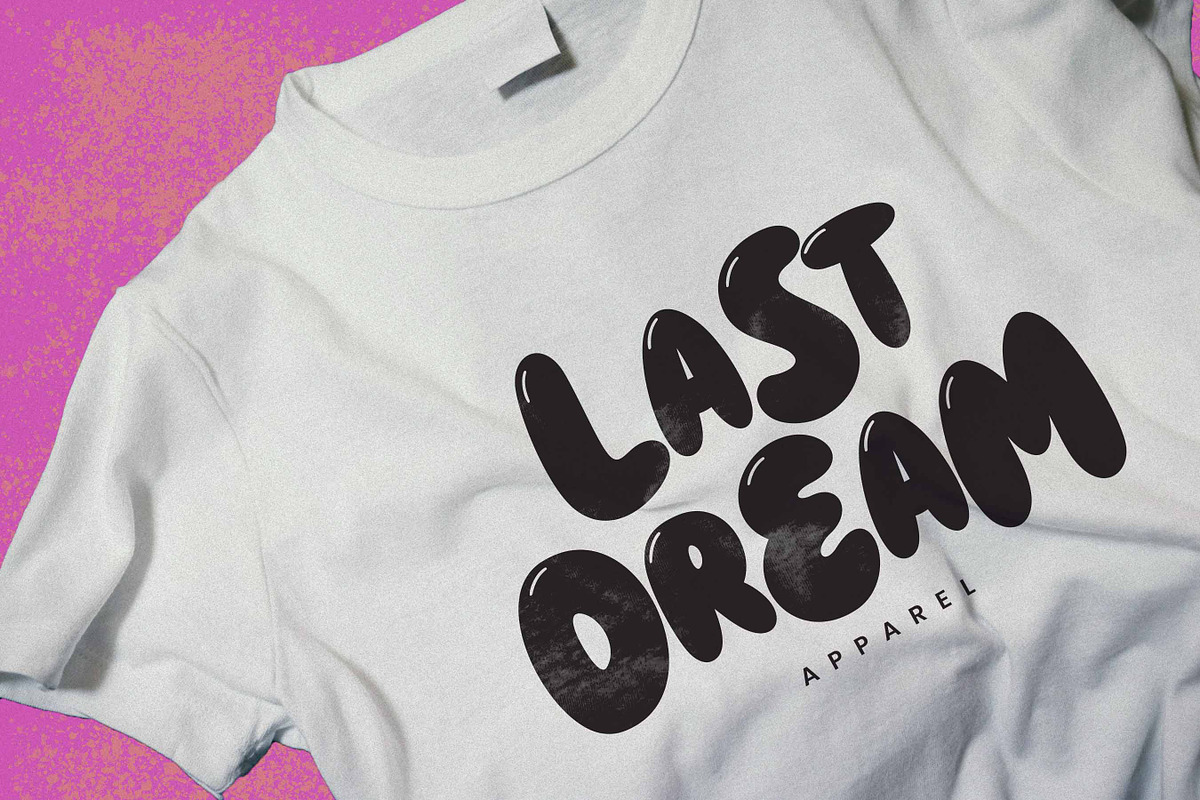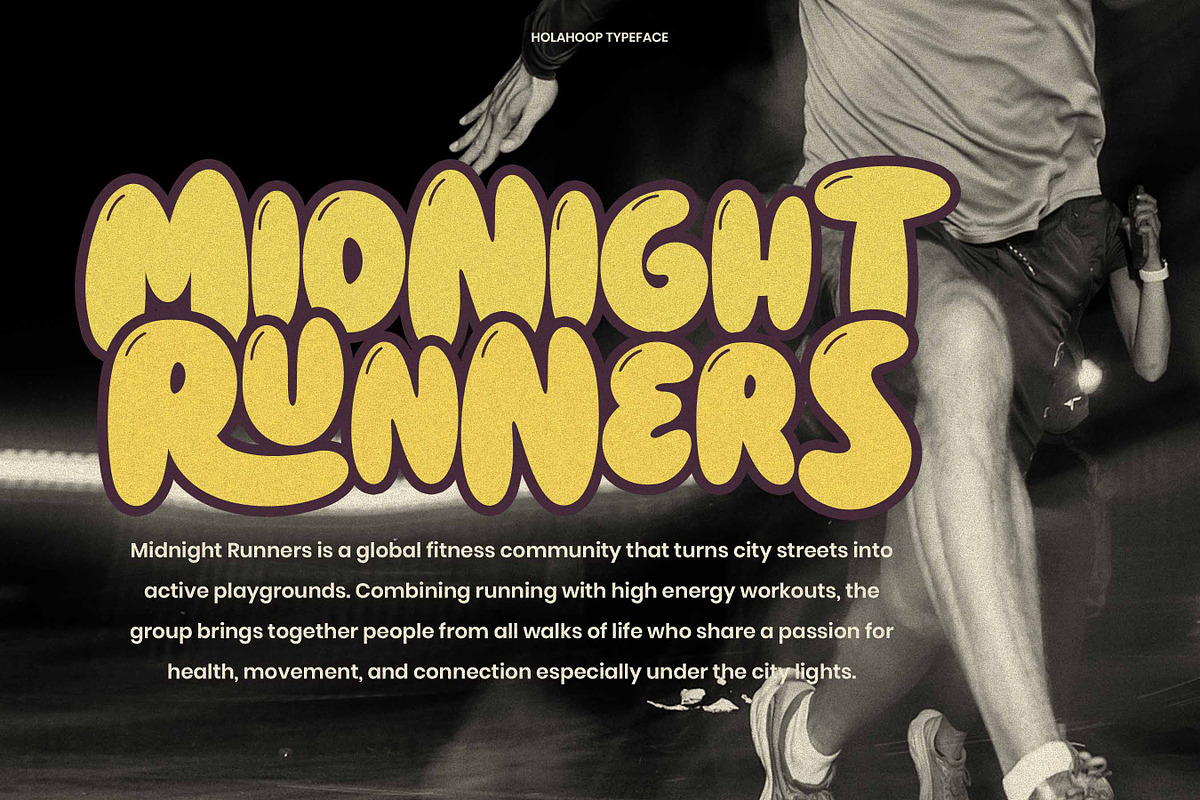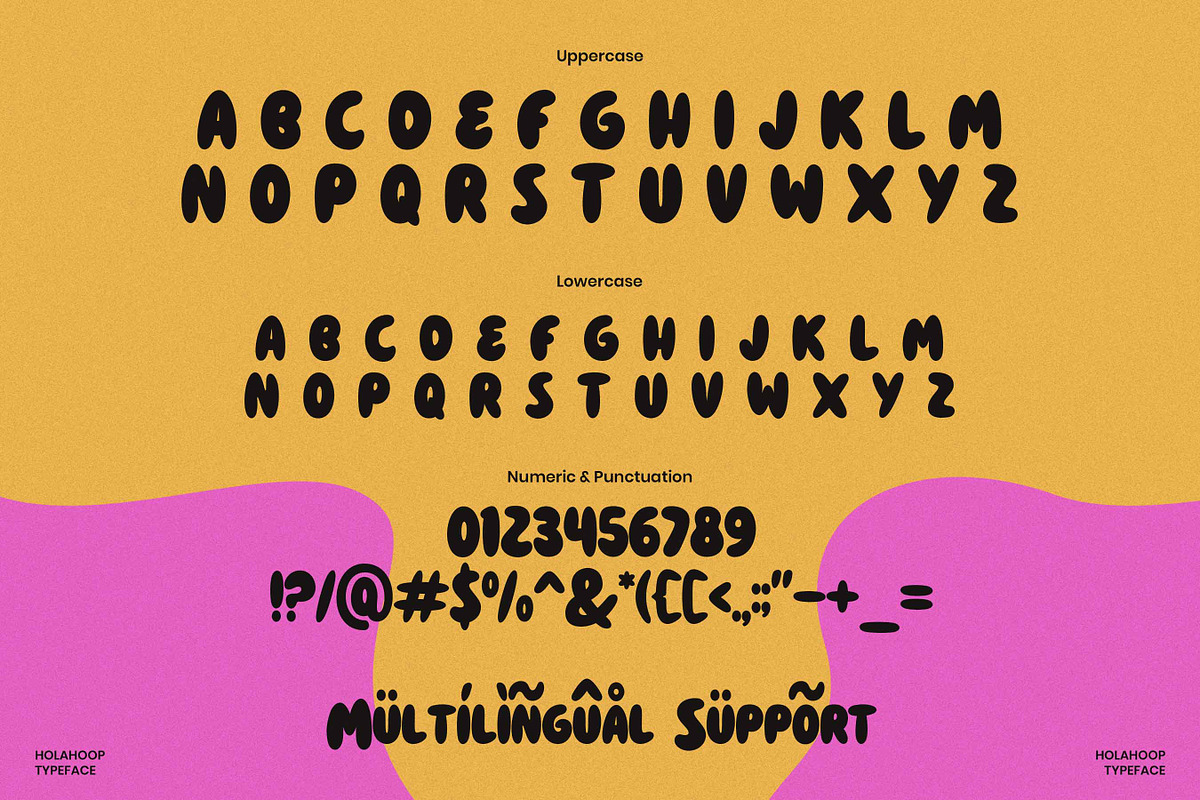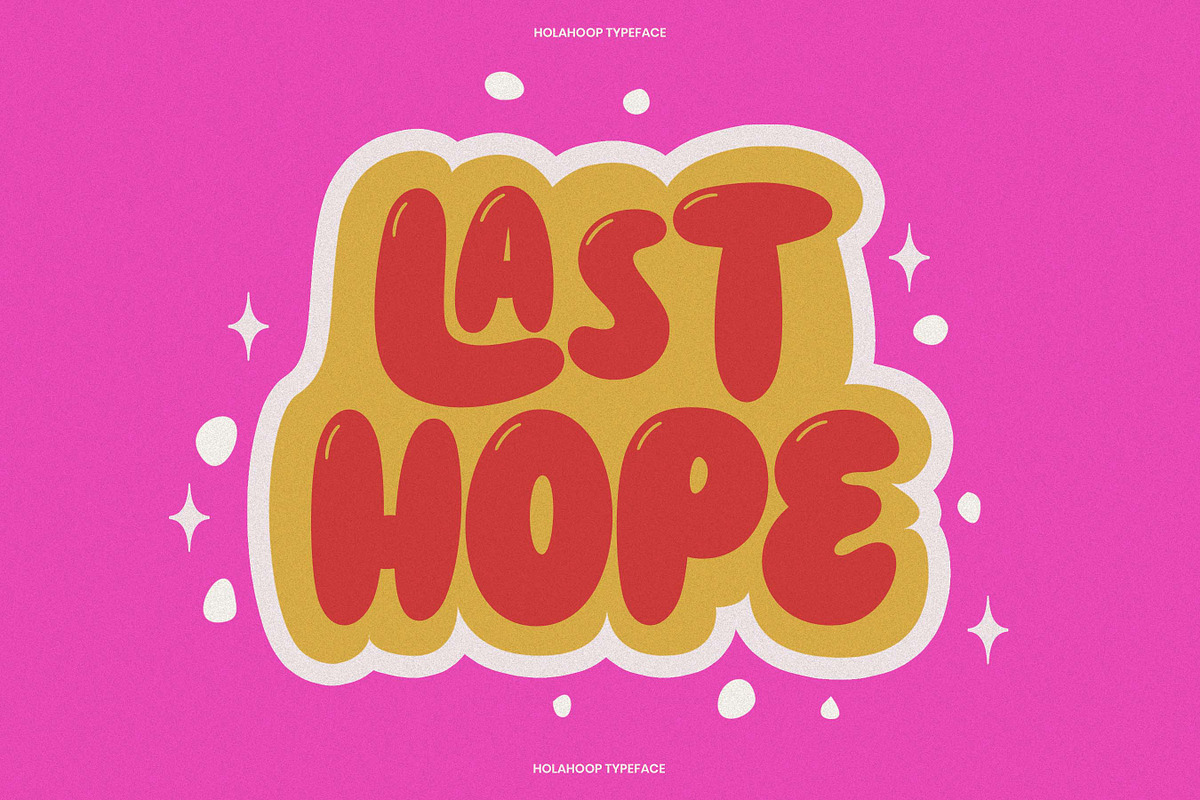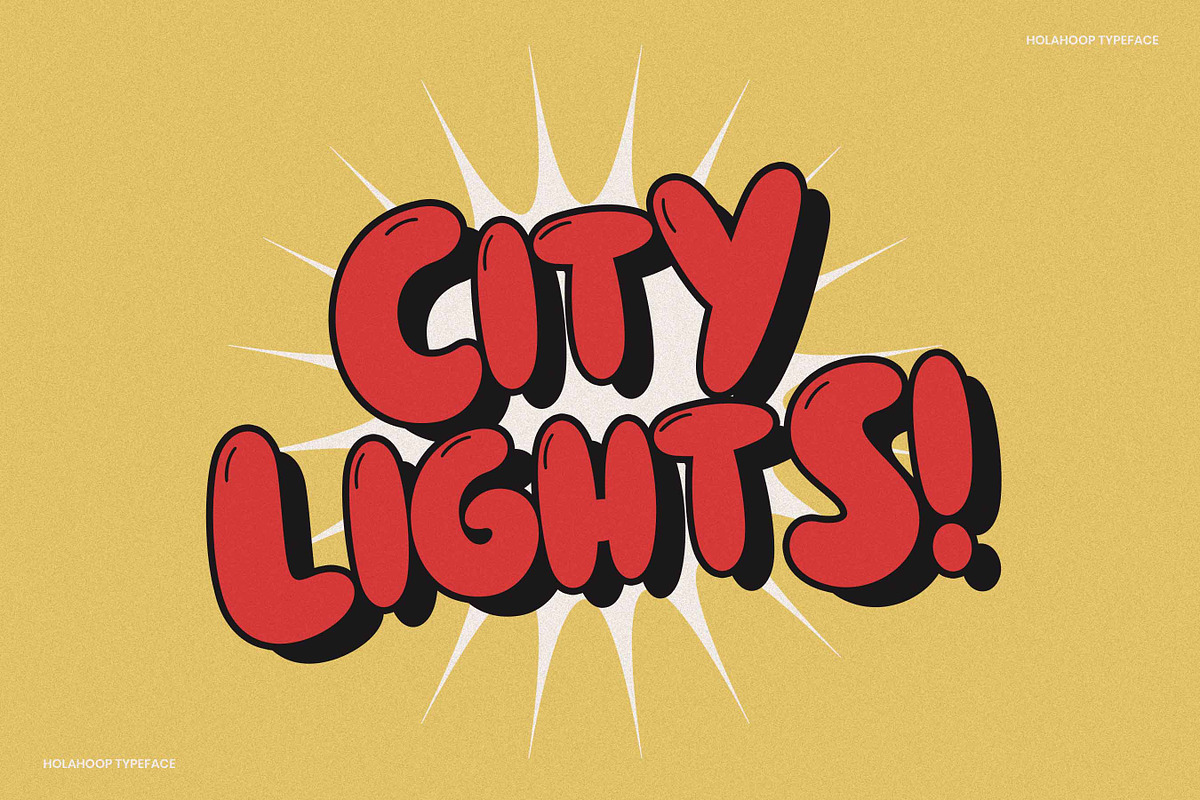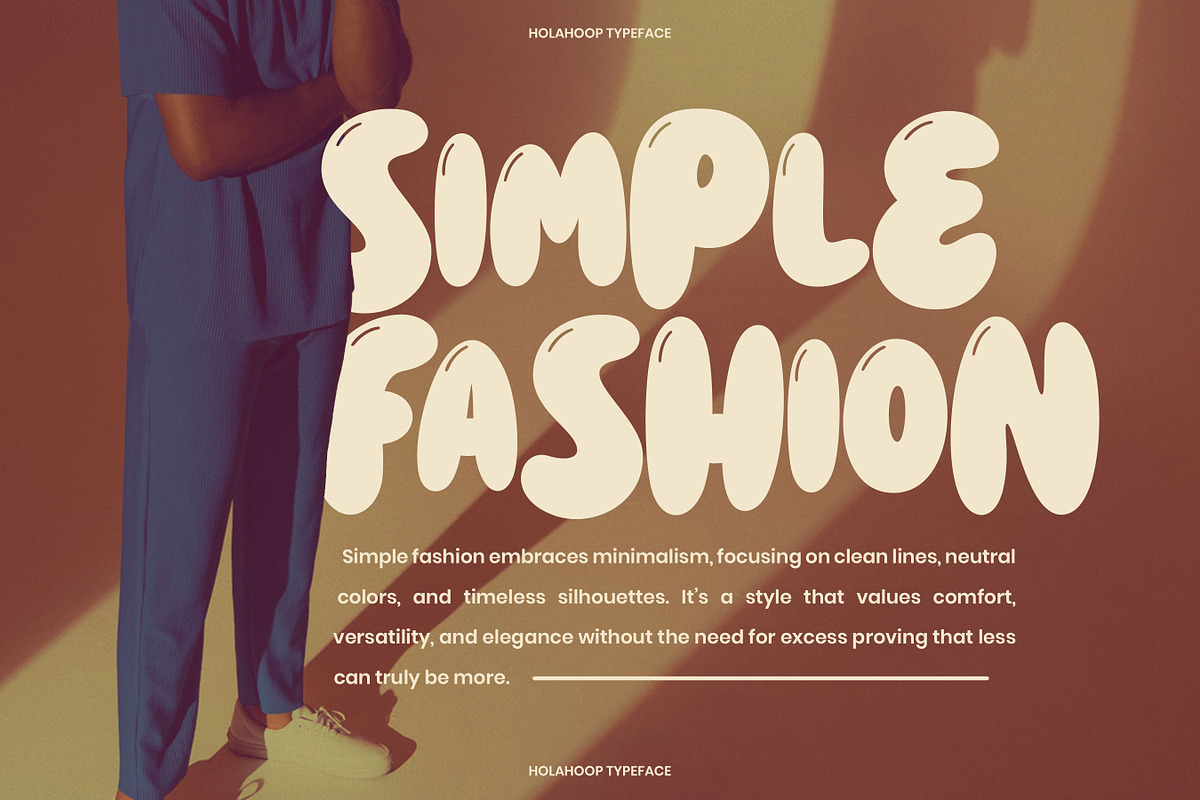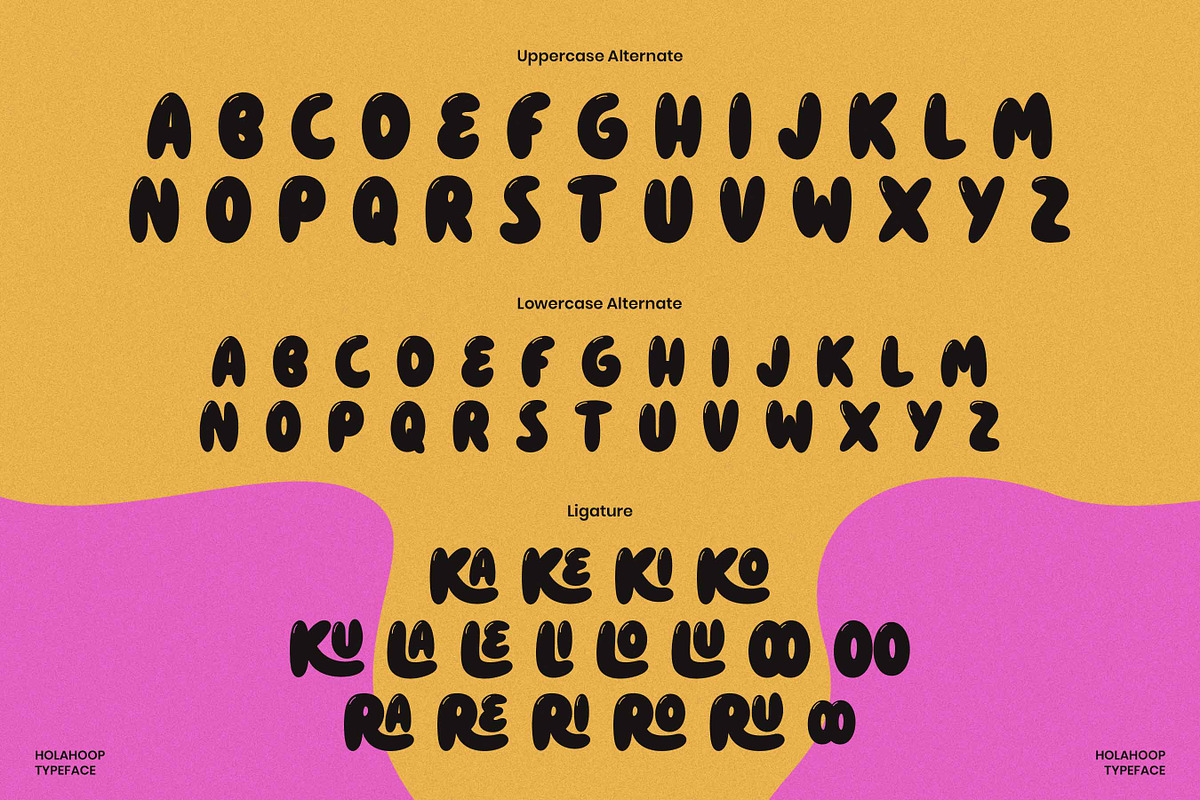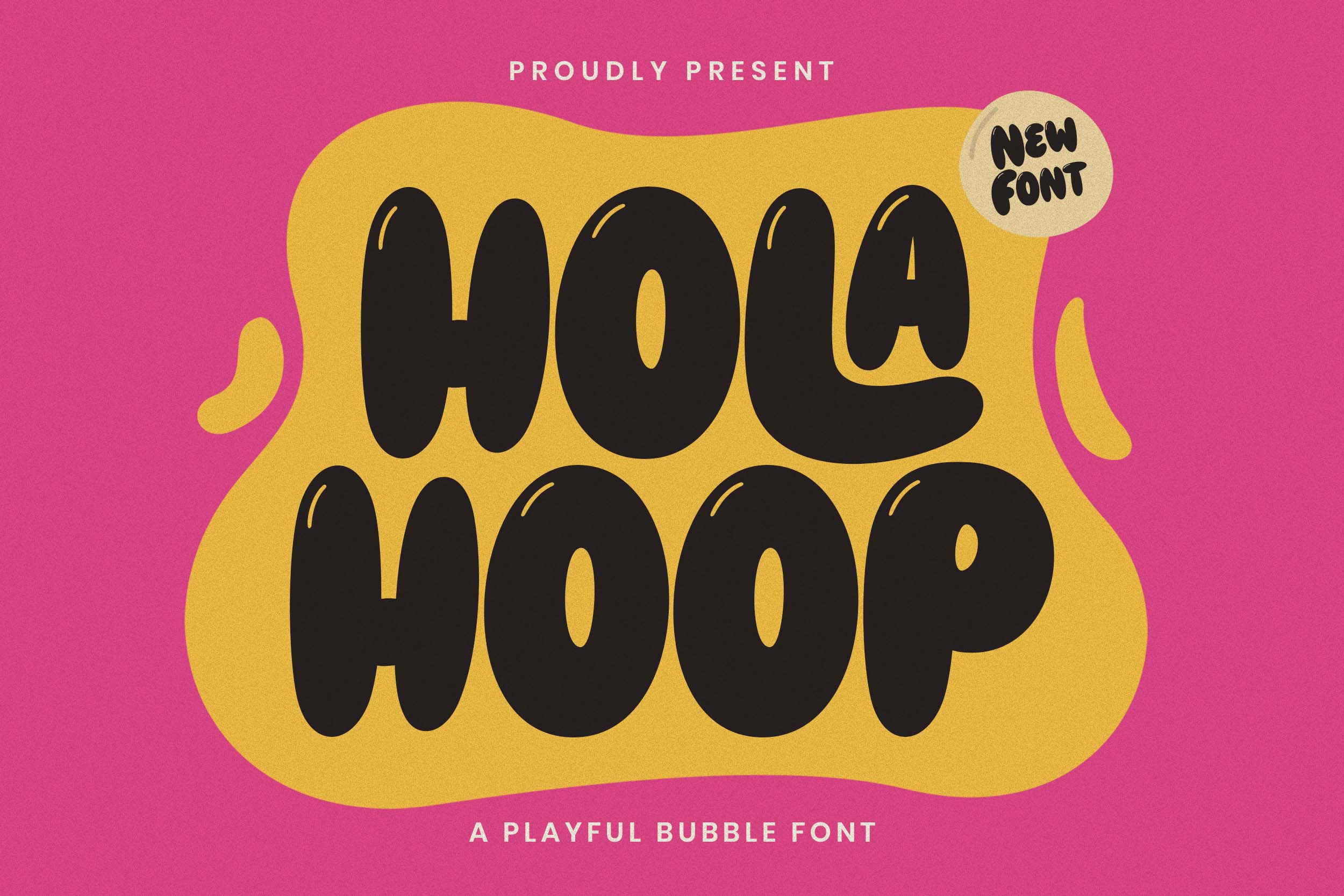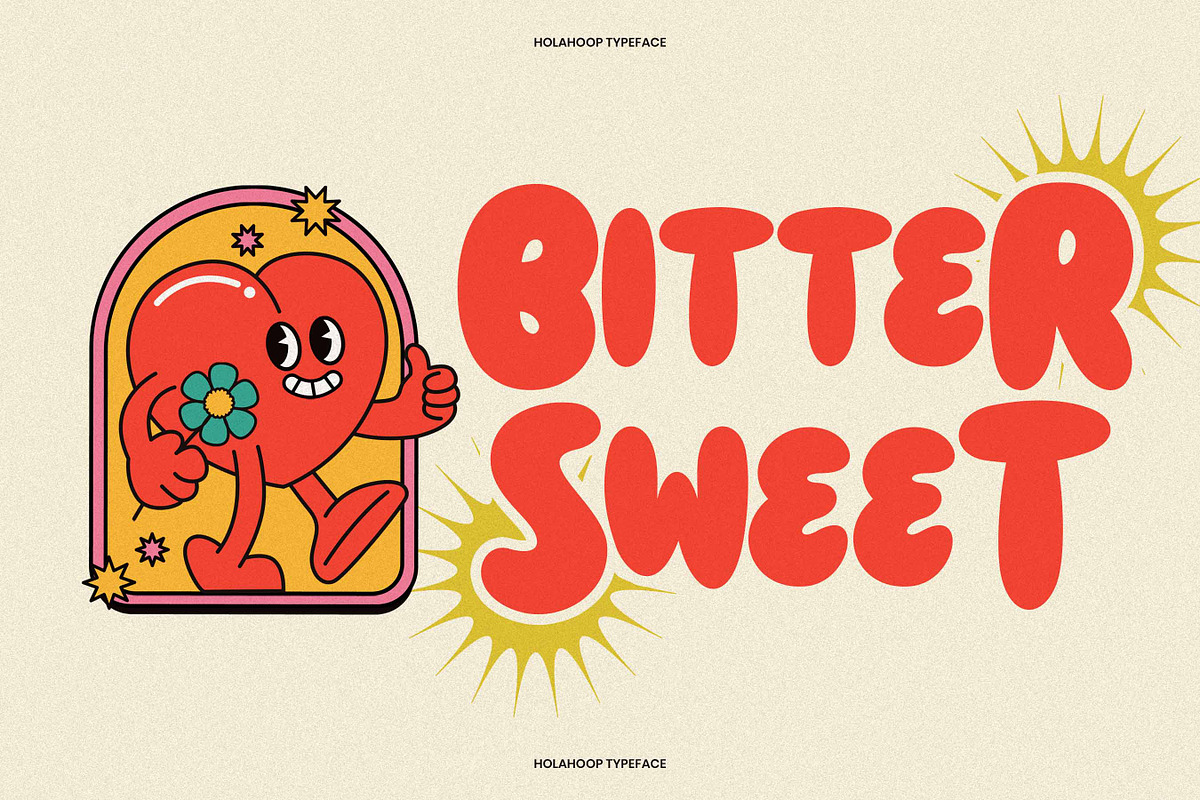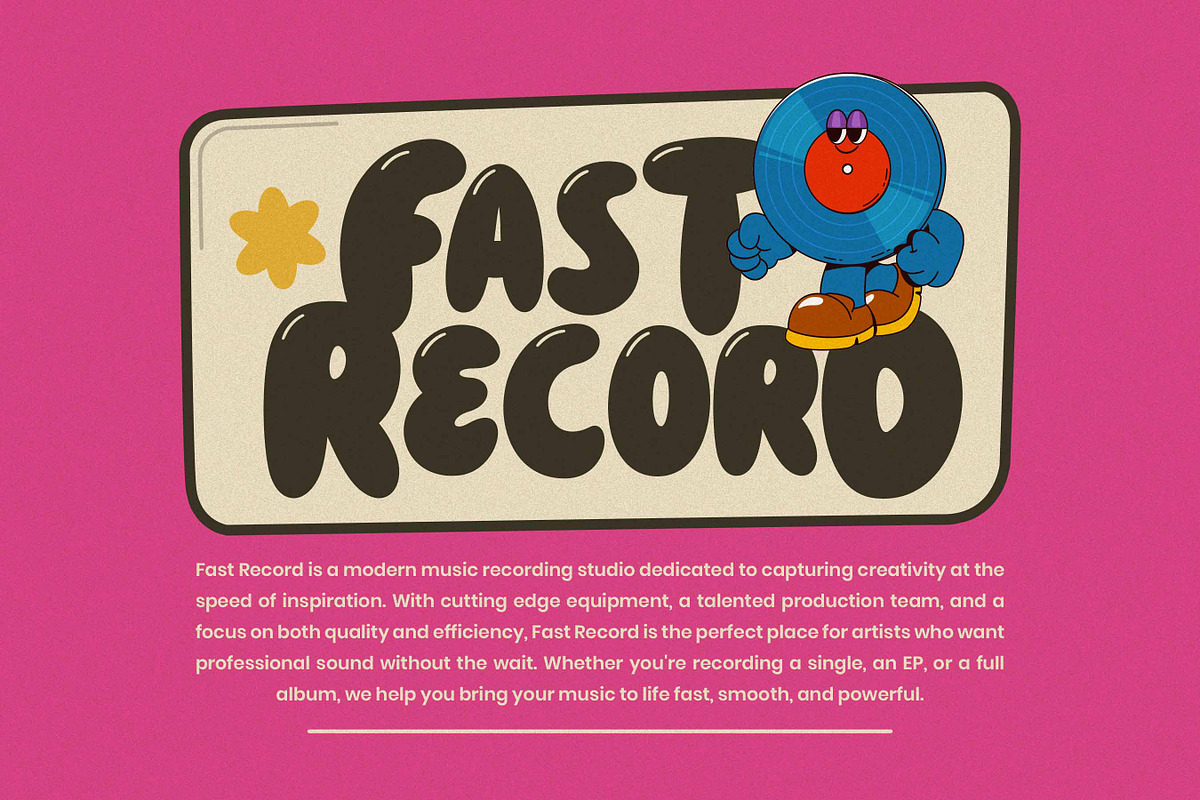
Holahoop - Playful Font
HOLAHOOP – playful bubble font
HOLAHOOP a playful bubble font that’s full of life and personalit. With its bold, rounded shapes and cheerful bounce, HOLAHOOP is designed to make any design feel fun, loud, and full of good vibes. Inspired by retro cartoons and pop-style graphics, this font brings a nostalgic punch with a modern twist. Whether you're creating vibrant poster art, energetic social media graphics, funky packaging, or playful branding, HOLAHOOP brings a groovy, hand-lettered charm that stands out. Perfect for creatives who want their designs to shout “fun” in every letter. Let HOLAHOOP roll into your work and turn up the happy.
Who Should Use HOLAHOOP?
HOLAHOOP is made for bold creatives, playful designers, and anyone who wants to inject fun into their visuals.
Whether you're:
- A brand builder looking for a bubbly identity
- A music lover designing retro album art
- A content creator making scroll-stopping social media posts
- A streetwear designer adding attitude to apparel
- Or a small business wanting to stand out with quirky packaging HOLAHOOP is your go-to font for turning up the energy and leaving a lasting impression.
A Must-Have Font for Brand and Logo Creators and Designers
HOLAHOOP isn’t just a font—it’s a burst of personality. With its playful bubble style and bold curves, this typeface is perfect for creators who want their logos and branding to pop. Whether you're crafting a fun product label, an eye-catching logo, or a bold visual identity, HOLAHOOP delivers unforgettable charm with every letter.
Why Choose HOLAHOOP for Brand and Logo Projects?
HOLAHOOP brings boldness, bounce, and energy to every design. Its bubble-style letterforms are full of fun and character—instantly grabbing attention and leaving a lasting impression. Whether you’re building a quirky brand, designing a playful logo, or creating visuals that need to stand out, HOLAHOOP gives you the tools to express creativity with confidence. It's not just a font—it’s a statement.
Suitable For:
- Brand identity & logo design
- Kids-related products & packaging
- Music events & festival posters
- Streetwear and merchandise design
- Fun social media graphics
- Pop culture or retro-themed projects
- Cartoon titles and playful illustrations
- Youth-focused marketing campaigns